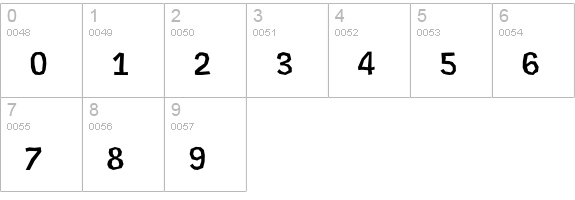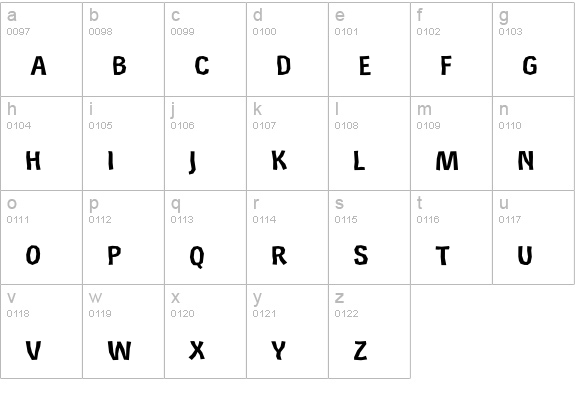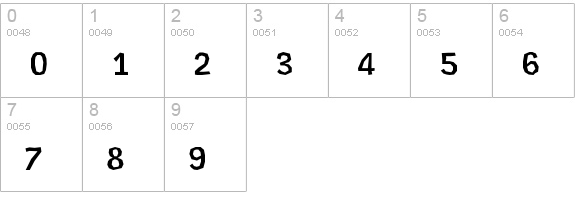
Rekord-Caps Font Details
Introducing Rekord-Caps, the captivating, versatile, and modern font that is sure to make a bold statement in any design project. With its sleek and sophisticated uppercase letters, this font exudes a sense of elegance and professionalism. Rekord-Caps is not just visually striking; it also offers a wide range of applications, making it perfect for various design purposes. Whether you're designing a logo, creating eye-catching headlines, or crafting stylish invitations, this font will effortlessly elevate your designs to new heights. One of the most remarkable aspects of Rekord-Caps is that it is available for free download at FontsMarket.com. Yes, you read that correctly - this incredible font can be yours without spending a dime! FontsMarket.com is renowned for its vast collection of high-quality fonts, and Rekord-Caps is no exception. It is the epitome of the perfect blend between affordability and exceptional quality. With its clean lines, sharp edges, and well-balanced design, Rekord-Caps will add a touch of sophistication and professionalism to any project. Its versatility allows it to seamlessly integrate into various design styles and themes, making it an invaluable asset for designers and creatives alike. So, why wait? Don't miss out on the opportunity to enhance your designs with the timeless elegance of Rekord-Caps font. Head over to FontsMarket.com today and experience the freedom of transforming your creative visions into reality with this stunning font, available for free download.